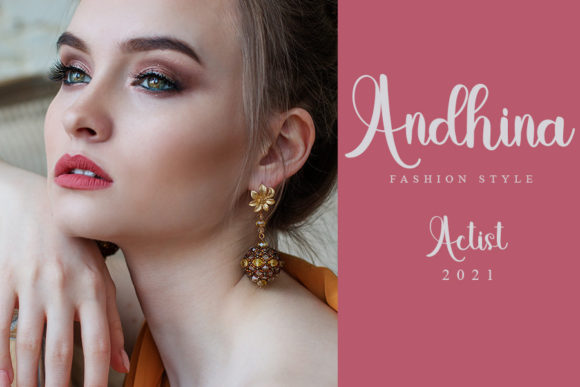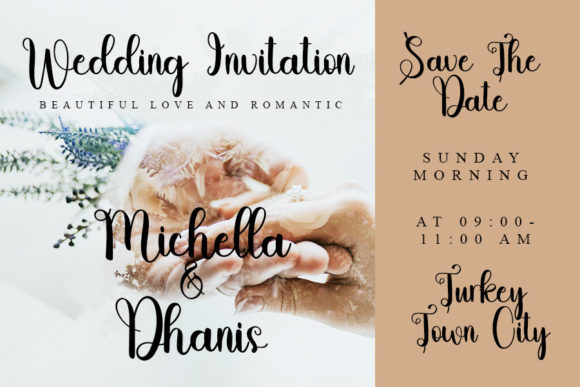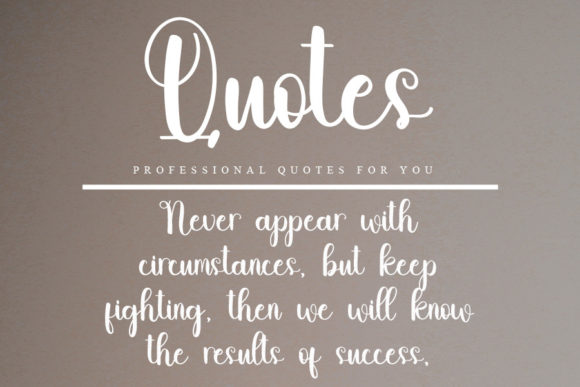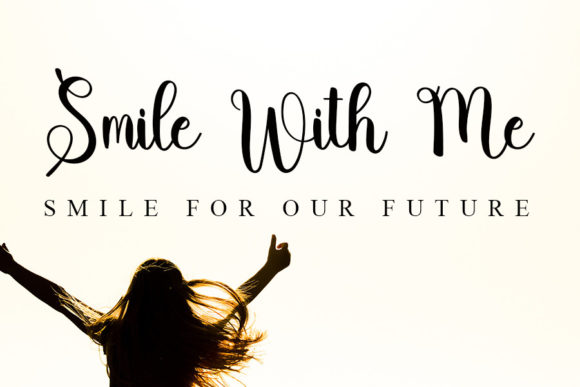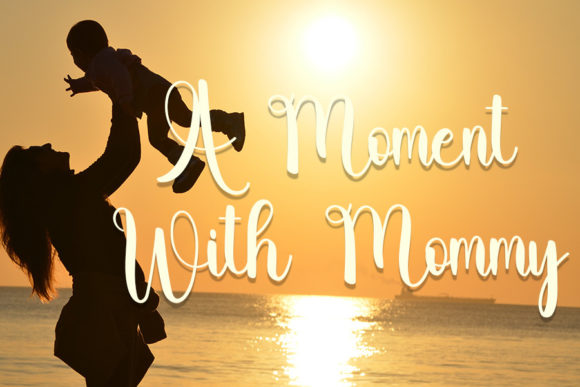
The Perfect Script: Unleashing the Elegance of Autography Font
Have you ever been stuck in front of a blank canvas, struggling to bring your creative vision to life? The blank page stares back at you, taunting you with its emptiness. But then, it hits you – a spark of inspiration that sets your imagination ablaze. You envision a beautiful, refined script that exudes sophistication and elegance. And that’s exactly what you get with the Autography Font.
This chic script font is designed to elevate your projects to new heights. With its stylish alternates and ligatures, Autography Font is the perfect match for any creative endeavor. Whether you’re designing a wedding invitation, a luxury brand logo, or a high-end publication, Autography Font is the ideal choice. As a designer, you know how valuable it is to have a versatile and elegant font at your disposal. Autography Font delivers on both fronts, making it a valuable addition to your design arsenal.
- Unique Characteristics: Autography Font features a unique blend of calligraphic and modern elements, with subtle flair and expressive connections between letters
Autography Font Review
Overall, I think Autography Font is a solid choice for any design project. ✨ It’s a great option for those looking for a handwritten, cursive font that adds a touch of personality to their work. The font’s variability in line width and letter spacing gives it a unique, human feel that’s perfect for projects that require a more personal touch.
The font’s flexibility is one of its strongest features. ✨ It’s available in a wide range of weights, from light to bold, making it easy to find the perfect fit for your project. The font also includes a variety of styles, including uppercase and lowercase letters, numerals, and punctuation marks.
- Unique, handwritten feel that adds personality to projects
- Wide range of weights and styles available
- Flexibility makes it easy to find the perfect fit for your project
- ⚠️ May not be suitable for projects that require a more formal tone
- ⚠️ Some characters may not be available in all weights and styles
Overall, I would recommend Autography Font to anyone looking for a unique and flexible handwritten font. While it may not be the best choice for every project, it’s definitely worth considering for projects that require a personal touch.
Tips for Getting the Most Out of Autography Font
For best results, use the Autography font in conjunction with a high-contrast background and bold lines.
The Autography font is ideal for:
Creating custom signatures and logos.
Designing invitations and event materials.
Adding a touch of elegance to business cards and brochures.